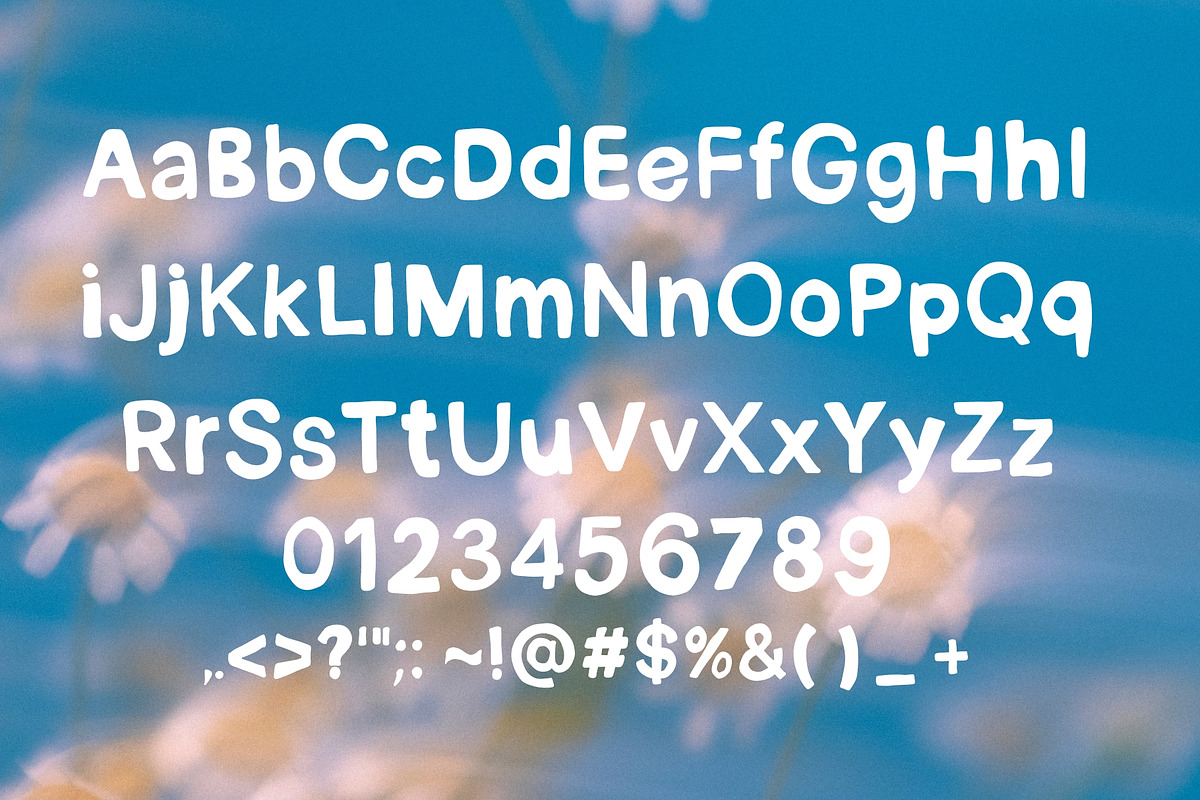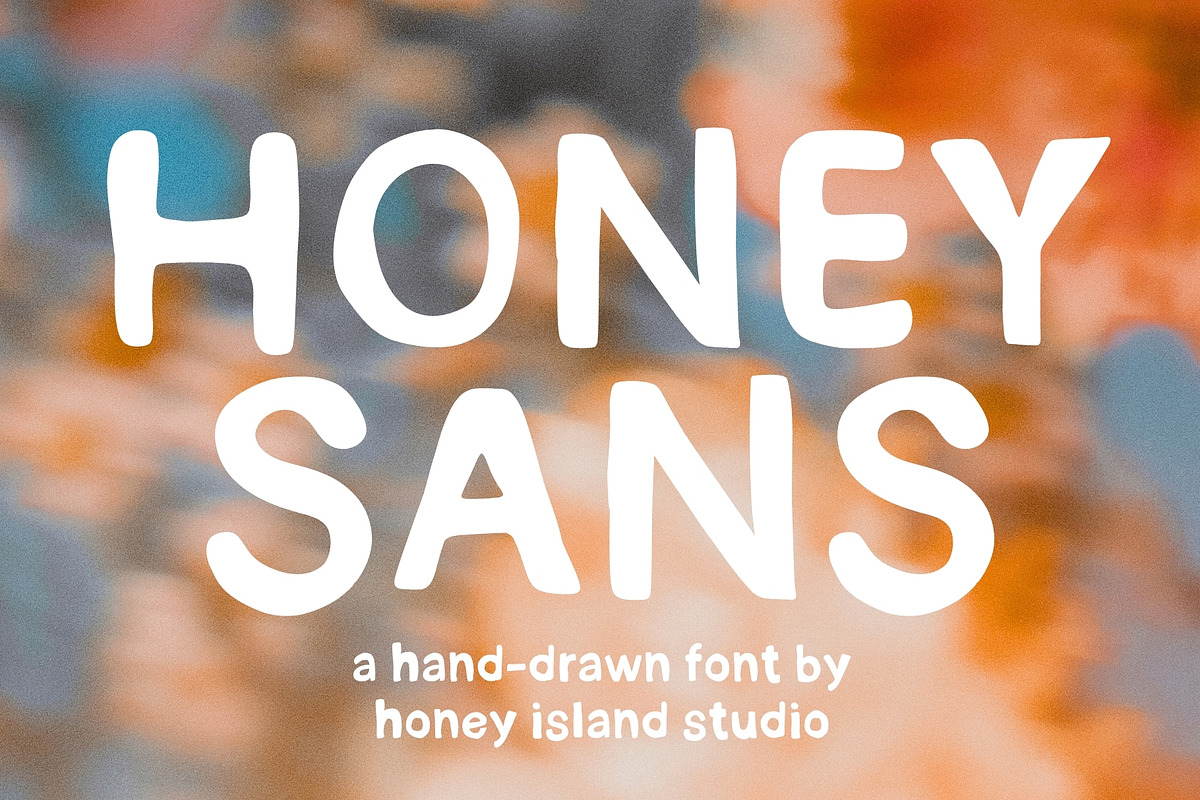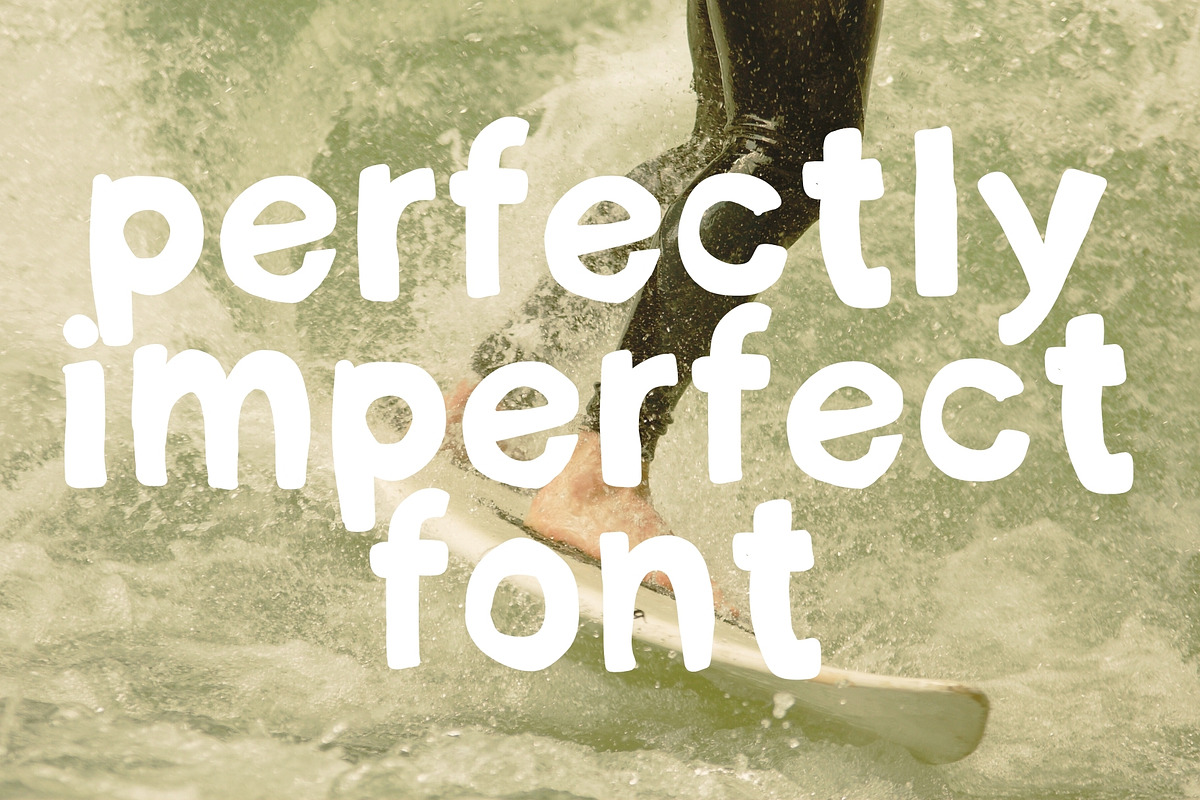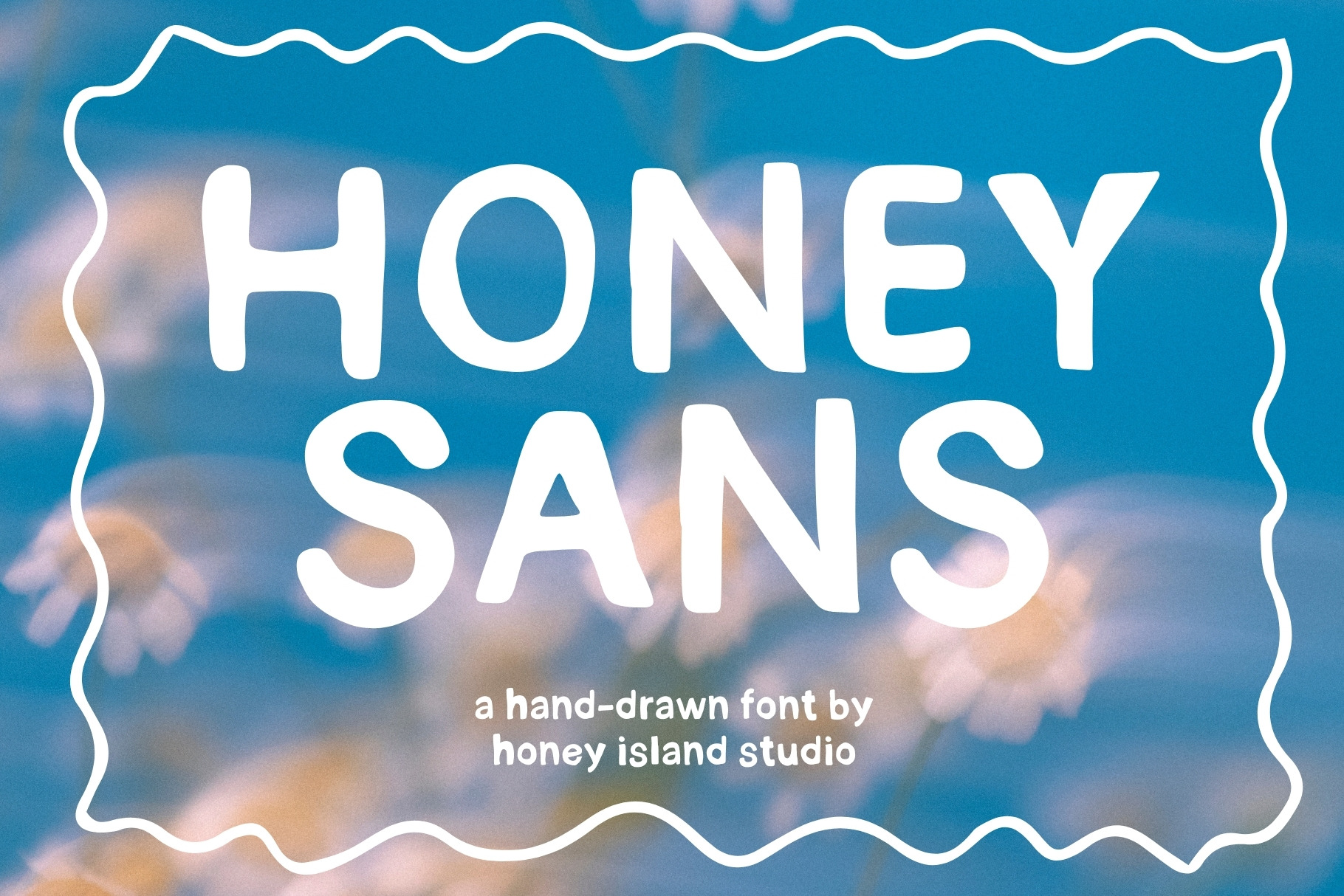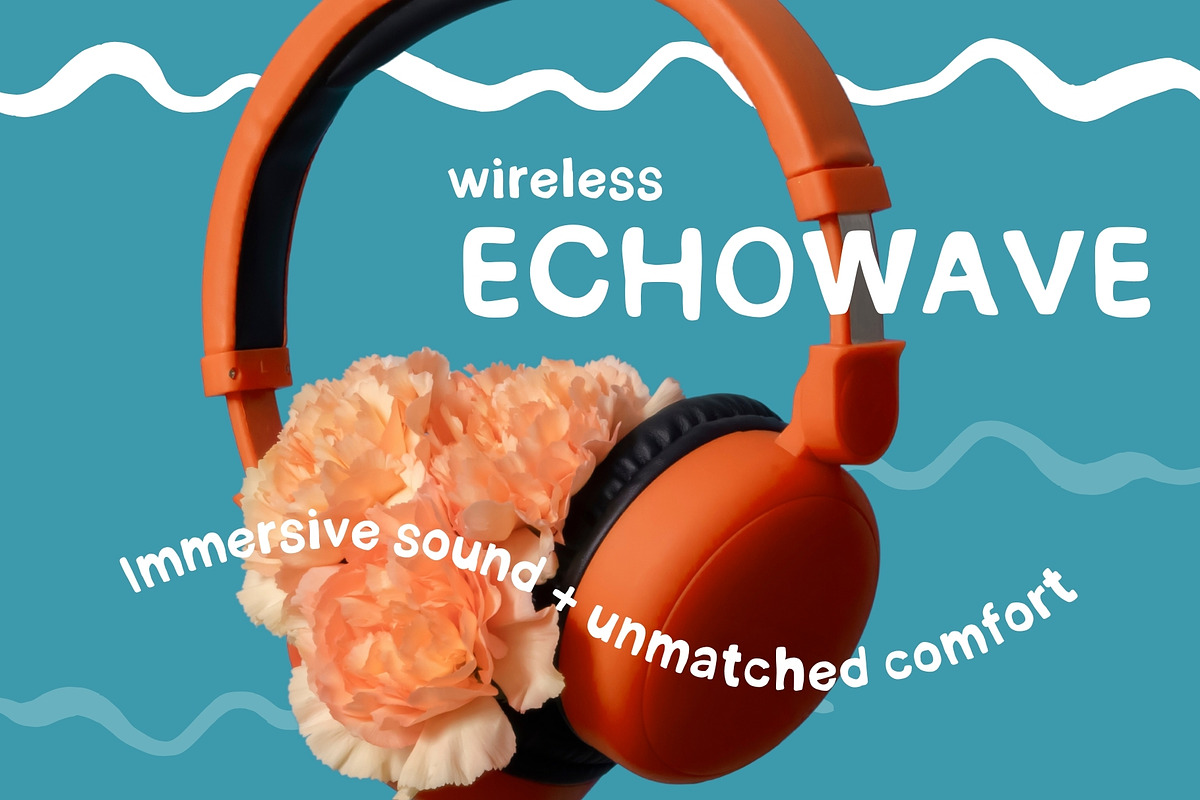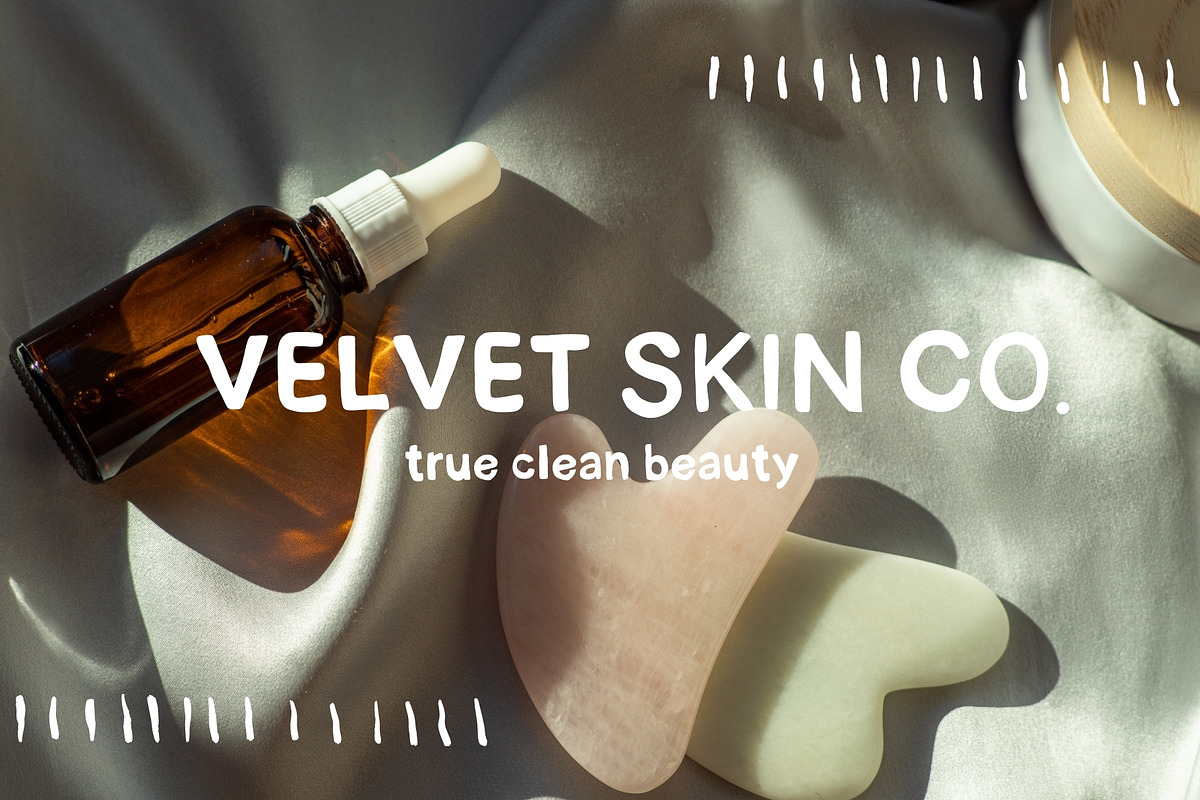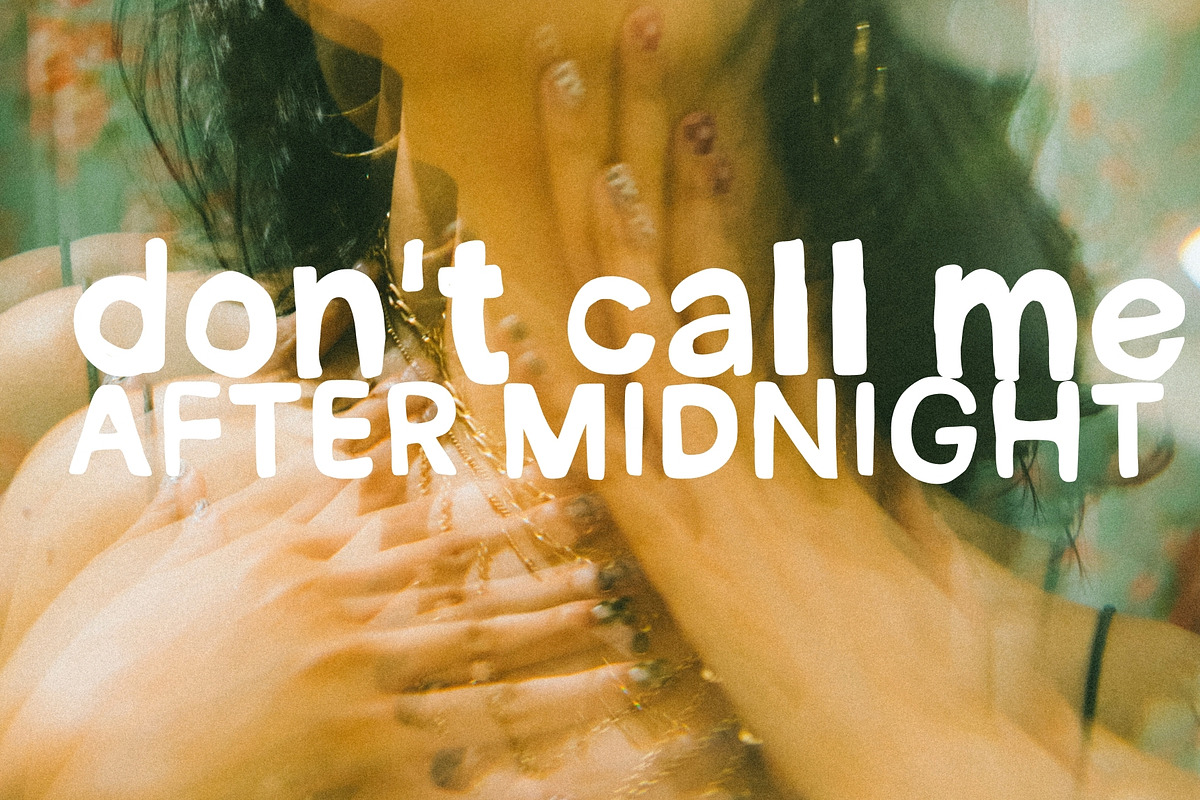
Honey Sans Hand-drawn Font
Honey Sans is a charming hand-drawn sans serif font that blends warmth and simplicity. Its clean yet organic lines give it a playful and approachable feel, making it perfect for projects that require a touch of whimsy and authenticity. Ideal for branding, invitations, packaging, and more, Honey Sans brings a personal, handcrafted vibe to your designs while maintaining readability and elegance.